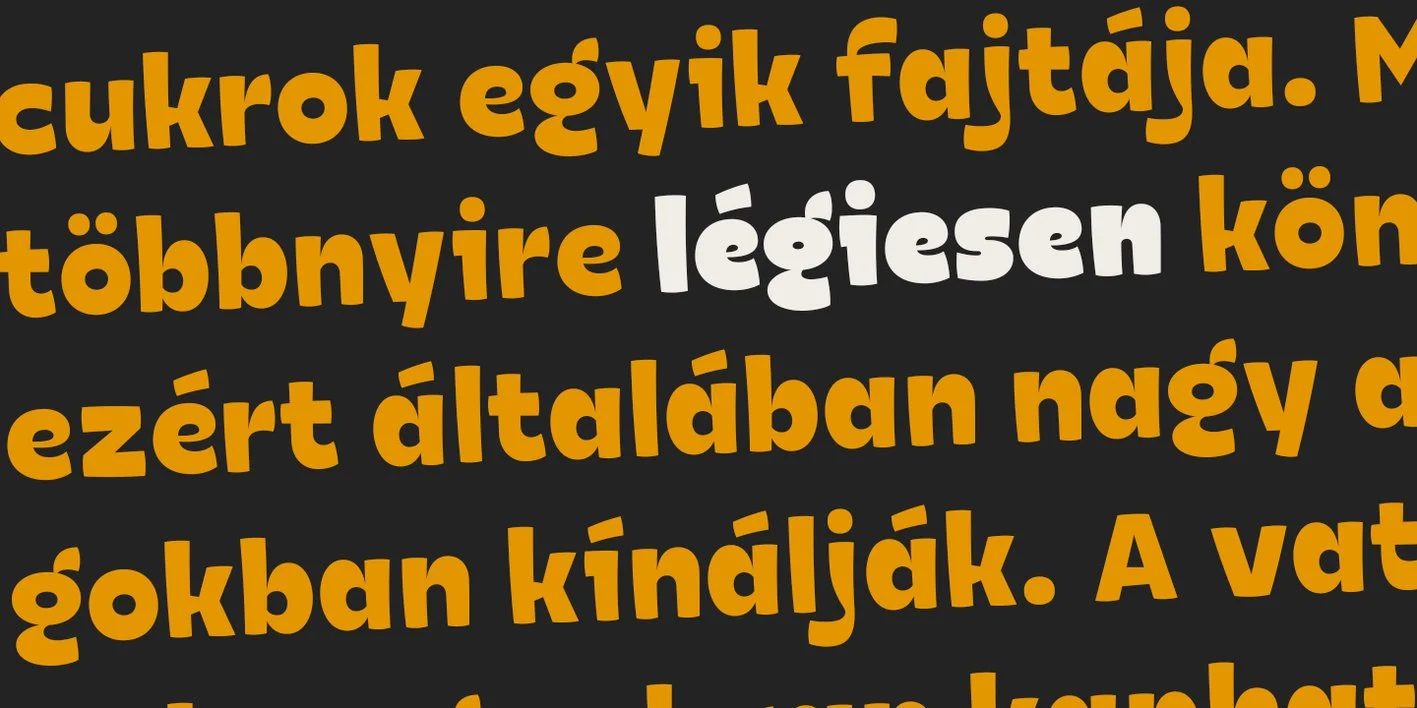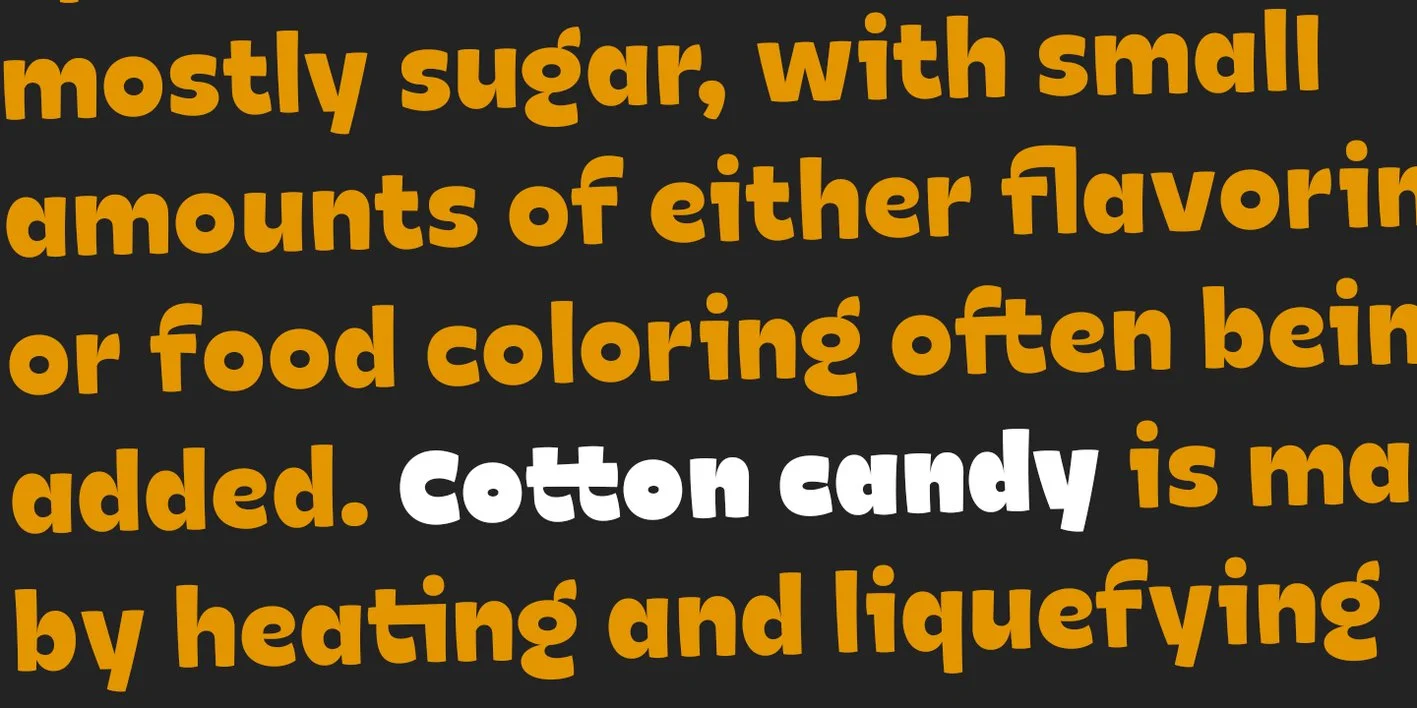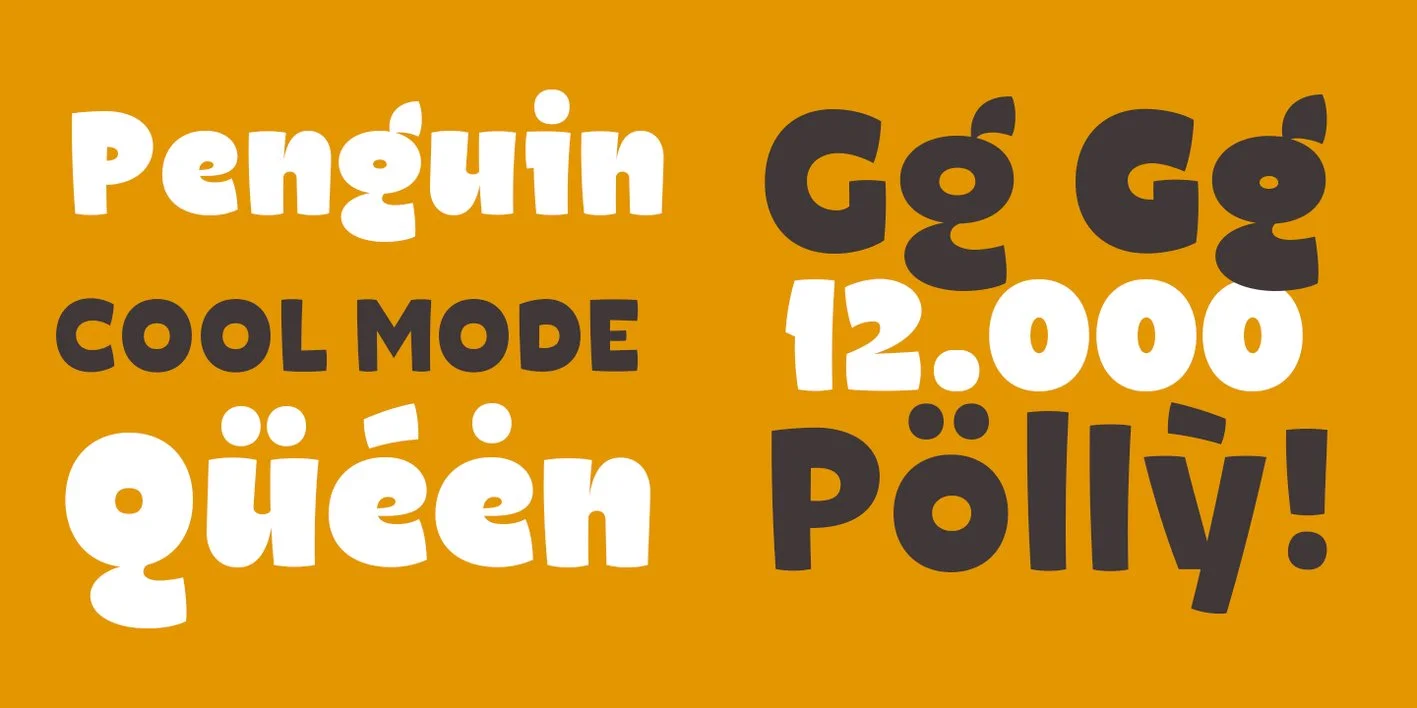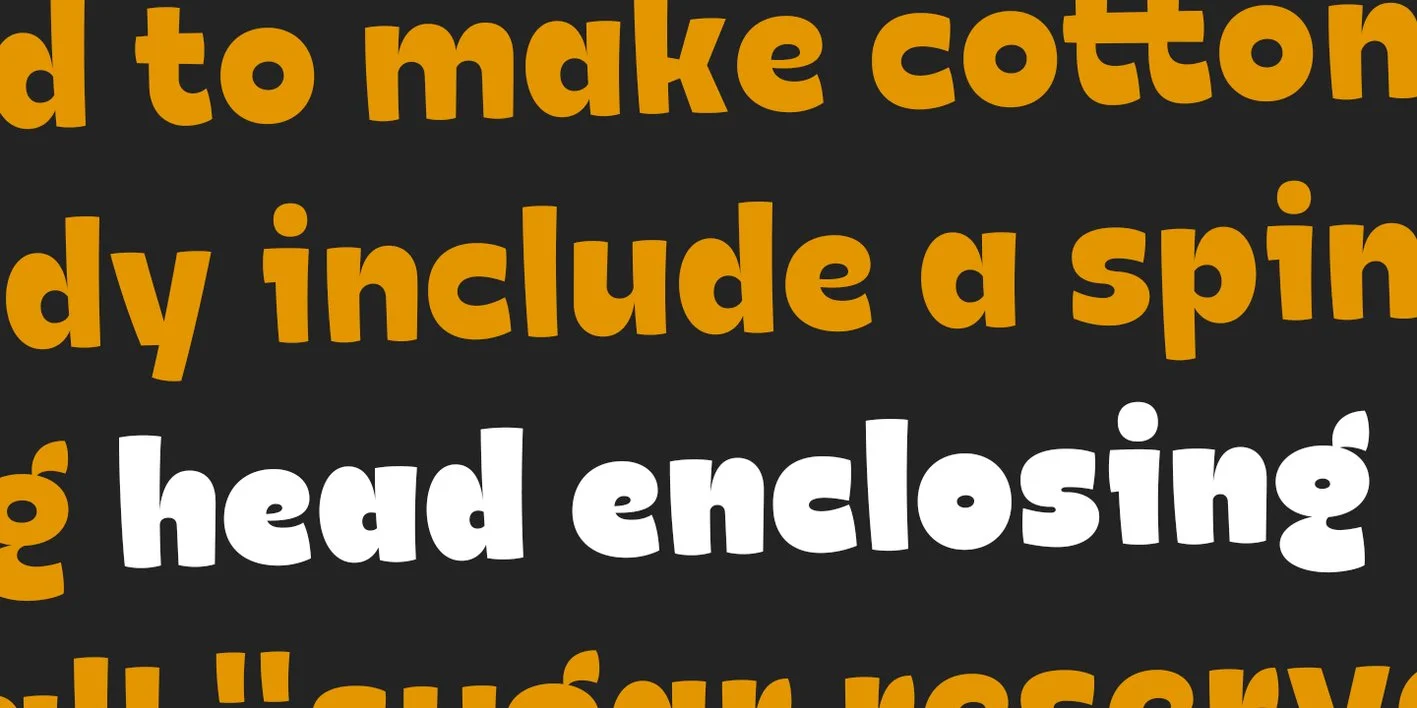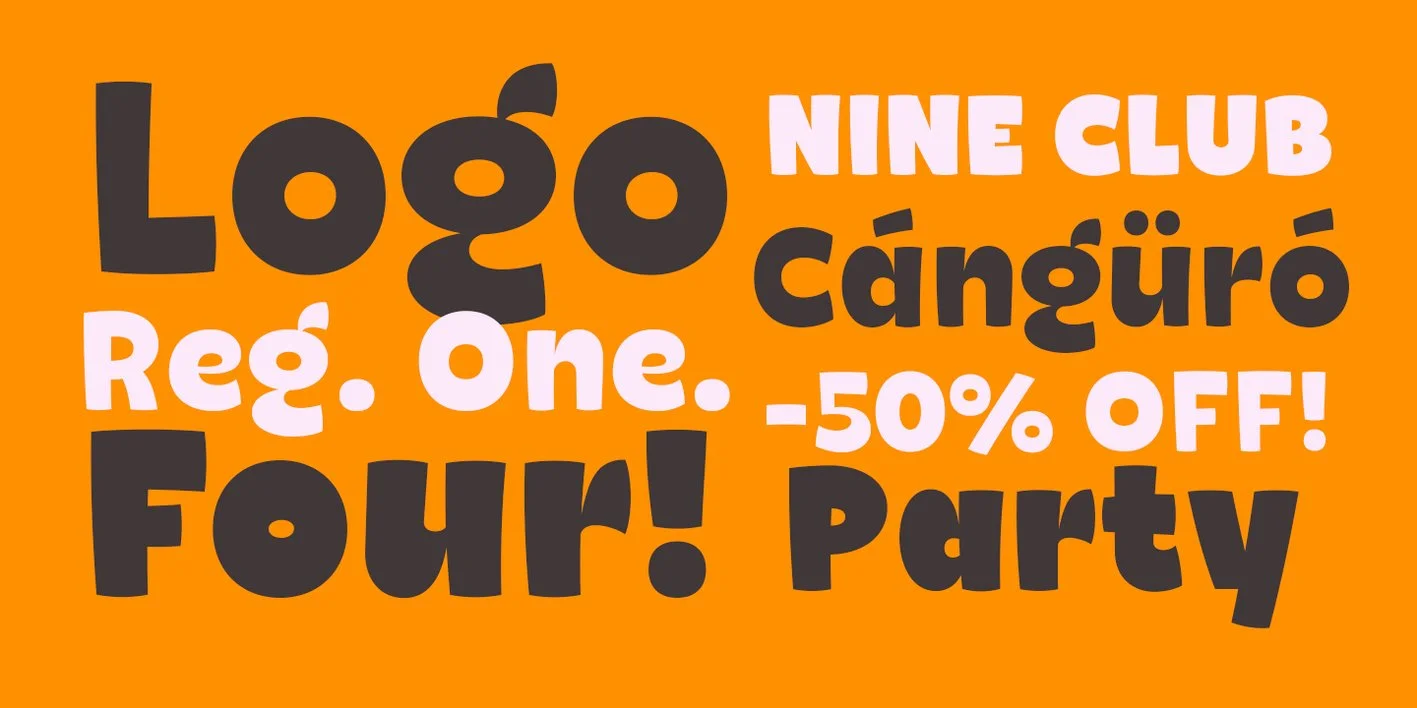
Naguel Font
Naguel combines clean construction with expressive detail, making it a dependable asset in any type toolkit.
Add Naguel to your toolkit and discover how it elevates everything from quick social posts to complex brand identities.